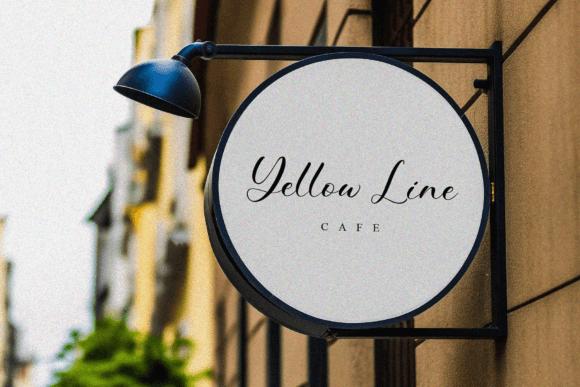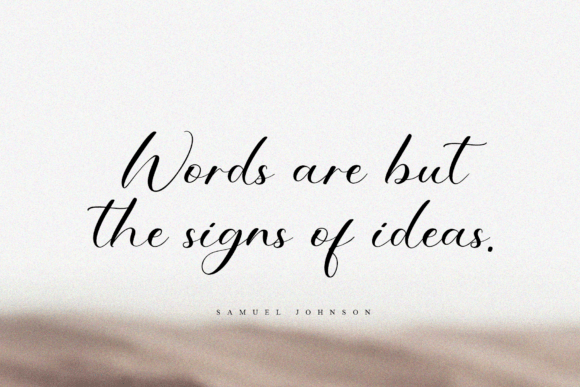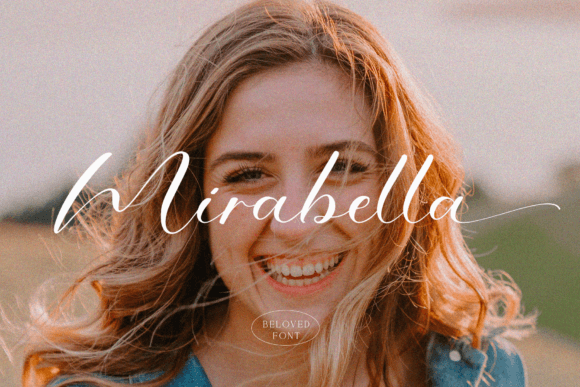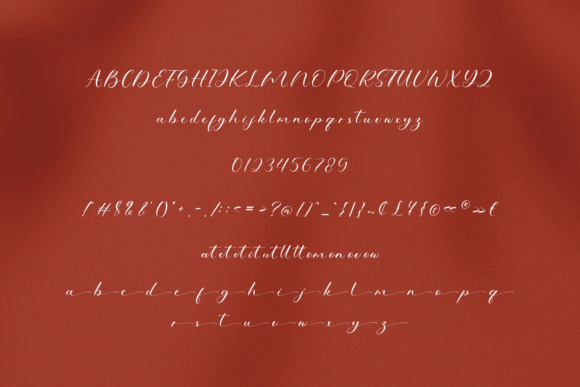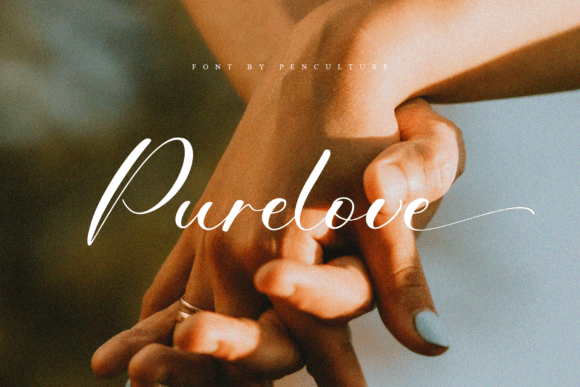
Introducing Beloved: The Elegant Calligraphy Font for Wedding Invitations and Beyond
Are you a designer or crafter looking for a font that exudes elegance and sophistication? Look no further than Beloved, a stunning calligraphy font perfect for wedding invitations, event designs, and any project that requires a touch of luxury. In this article, we’ll dive into the world of Beloved, exploring its unique features, versatility, and the endless creative possibilities it offers.
The Allure of Beloved: Intricate Ligatures and Sweeping Swashes
Beloved is a masterfully crafted font that boasts intricate ligatures and sweeping swashes, setting it apart from other calligraphy fonts. These delicate details are thoughtfully designed to meet the artistic needs of designers and crafters, providing a level of sophistication and refinement that’s hard to find elsewhere. Whether you’re creating wedding invitations, save-the-dates, or other stationery, Beloved is sure to impress.
Beloved Font Sample
Versatility at Its Finest: Pairing Beloved with Other Font Styles
One of the standout features of Beloved is its versatility. This exquisite font tastefully complements a wide range of font styles, from modern serif to sans serif and more. Whether you’re a fan of classic and traditional or modern and bold, Beloved seamlessly pairs with other fonts to create stunning designs that reflect your unique sensibility.
Some popular font pairing options for Beloved include:
• Modern serif fonts like Playfair Display or Bodoni for a luxurious feel
• Sans serif fonts like Helvetica or Arial for a clean and contemporary look
• Script fonts like Pacifico or Great Vibes for a whimsical touch
Unleashing Your Creativity with Beloved
With Beloved, the creative possibilities are endless. This calligraphy font is perfect for a wide range of design projects, including:
• Event designs, such as party invitations and flyers
• Branding and packaging design
Whether you’re a seasoned designer or a crafty DIY enthusiast, Beloved provides the perfect tool to captivate your audience with stunning designs. Its elegant and sophisticated feel ensures that your creations will be remembered for a long time.
Tips and Tricks for Working with Beloved
To get the most out of Beloved, here are some tips and tricks to keep in mind:
• Experiment with different font sizes and pairings to create visual interest
• Use the ligatures and swashes to add a touch of elegance and sophistication
• Don’t be afraid to mix and match Beloved with other fonts to create a unique look
In conclusion, Beloved is a truly exceptional calligraphy font that’s perfect for designers and crafters looking to add a touch of elegance and sophistication to their designs. With its intricate ligatures, sweeping swashes, and versatility, Beloved offers endless creative possibilities for wedding invitations, event designs, and beyond. Unleash your creativity with Beloved and discover a world of stunning design possibilities.